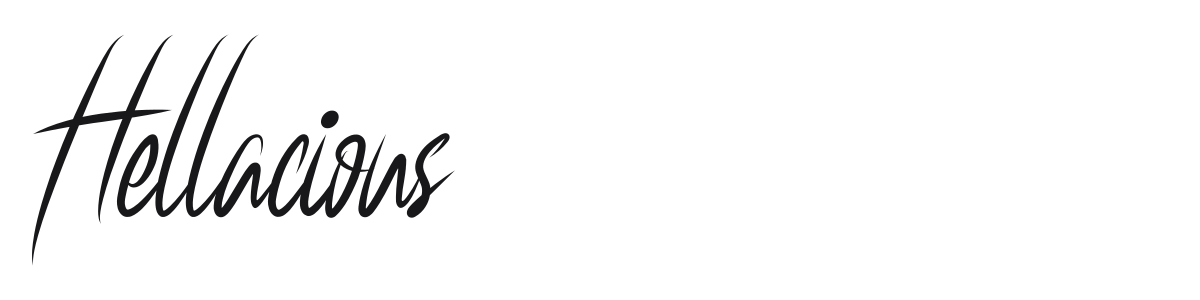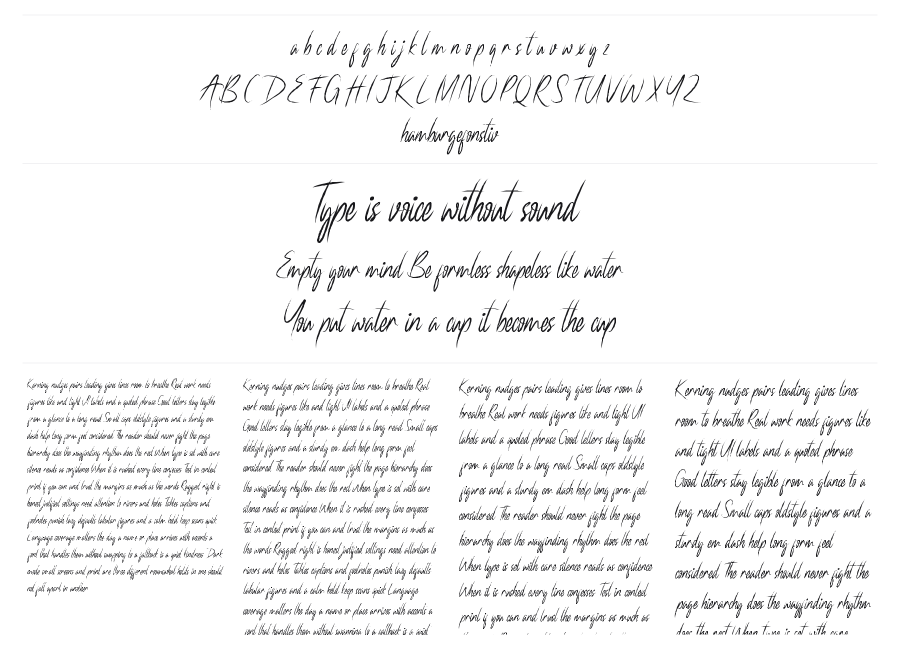
Hellacious
Hellacious is a flowing casual script with sweeping ascenders and looping descenders that mimic the energy of a confident handwritten signature. The thin, connected strokes move with a natural looseness that feels spontaneous without sacrificing elegance. It suits wedding stationery, boutique branding, and any project that needs handcrafted warmth at large sizes.